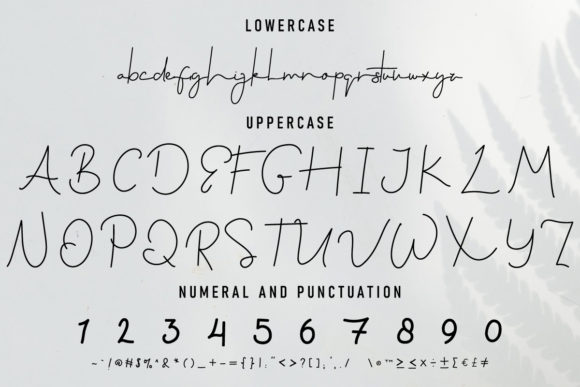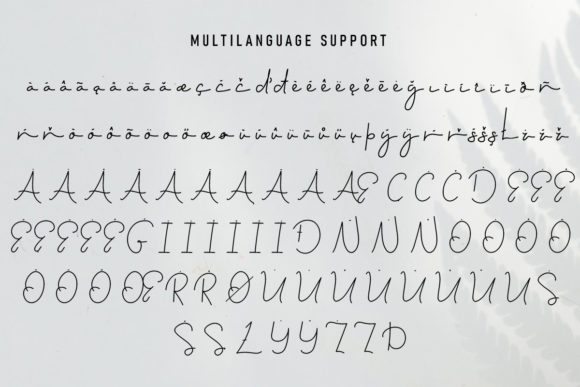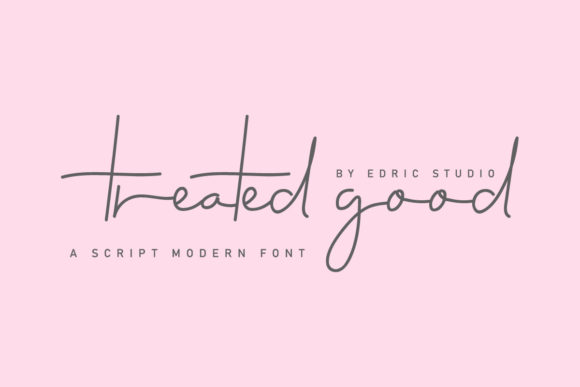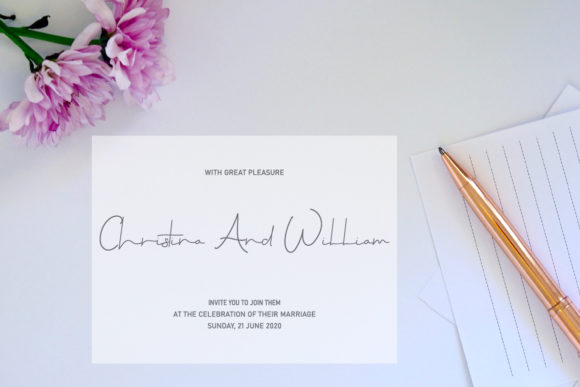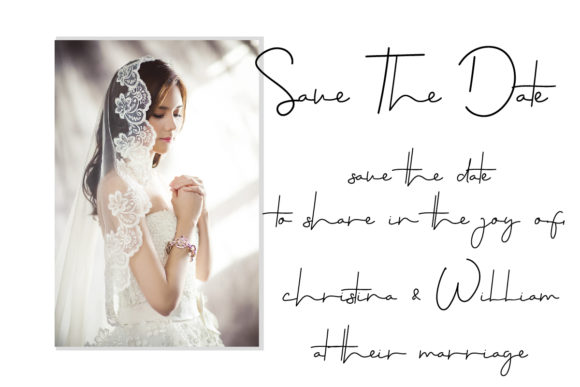
Treated Good Font
About Treated Good Font
Treated Good is a casual and elegant handwritten font. Add it to your most creative ideas and notice how it makes them come alive!